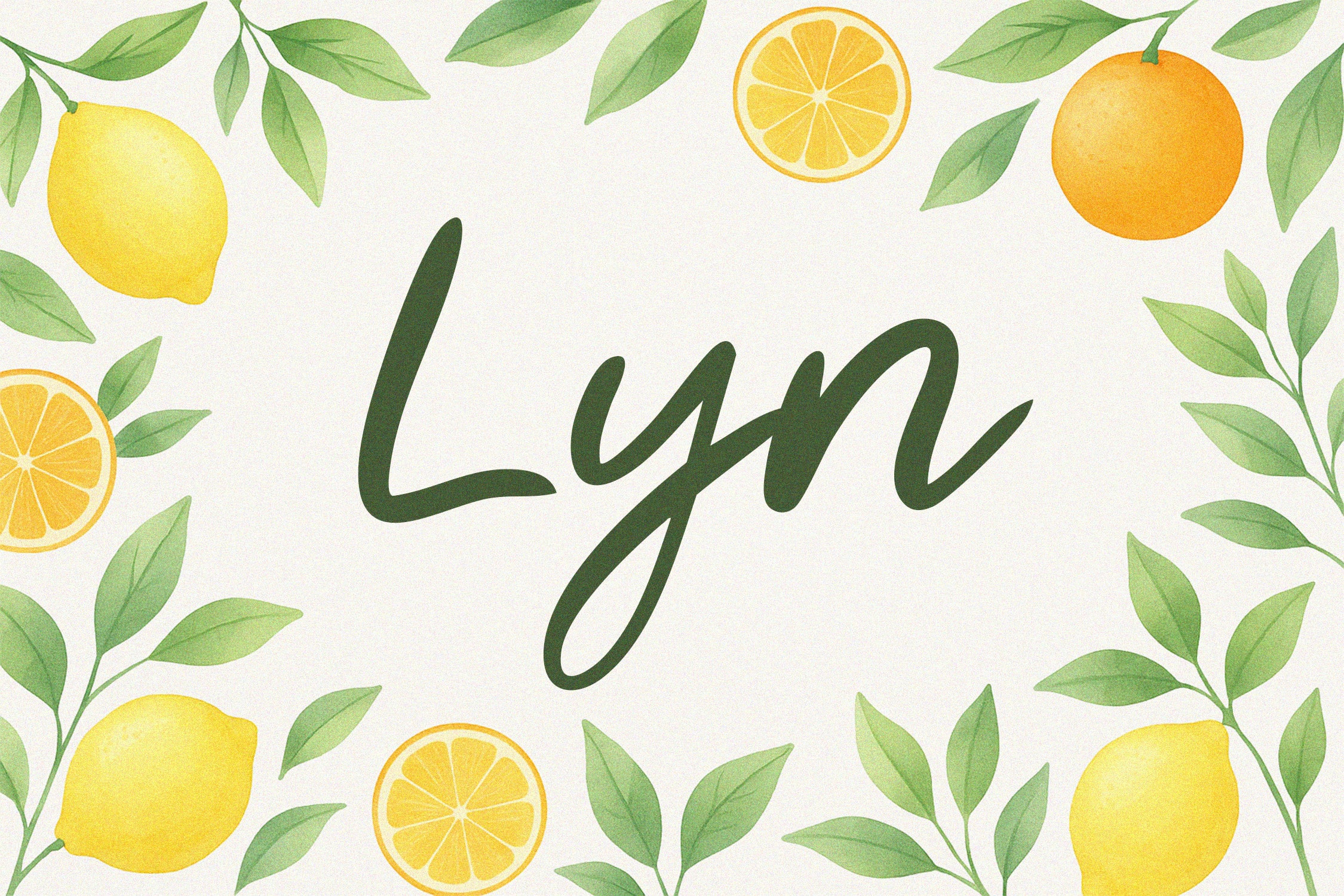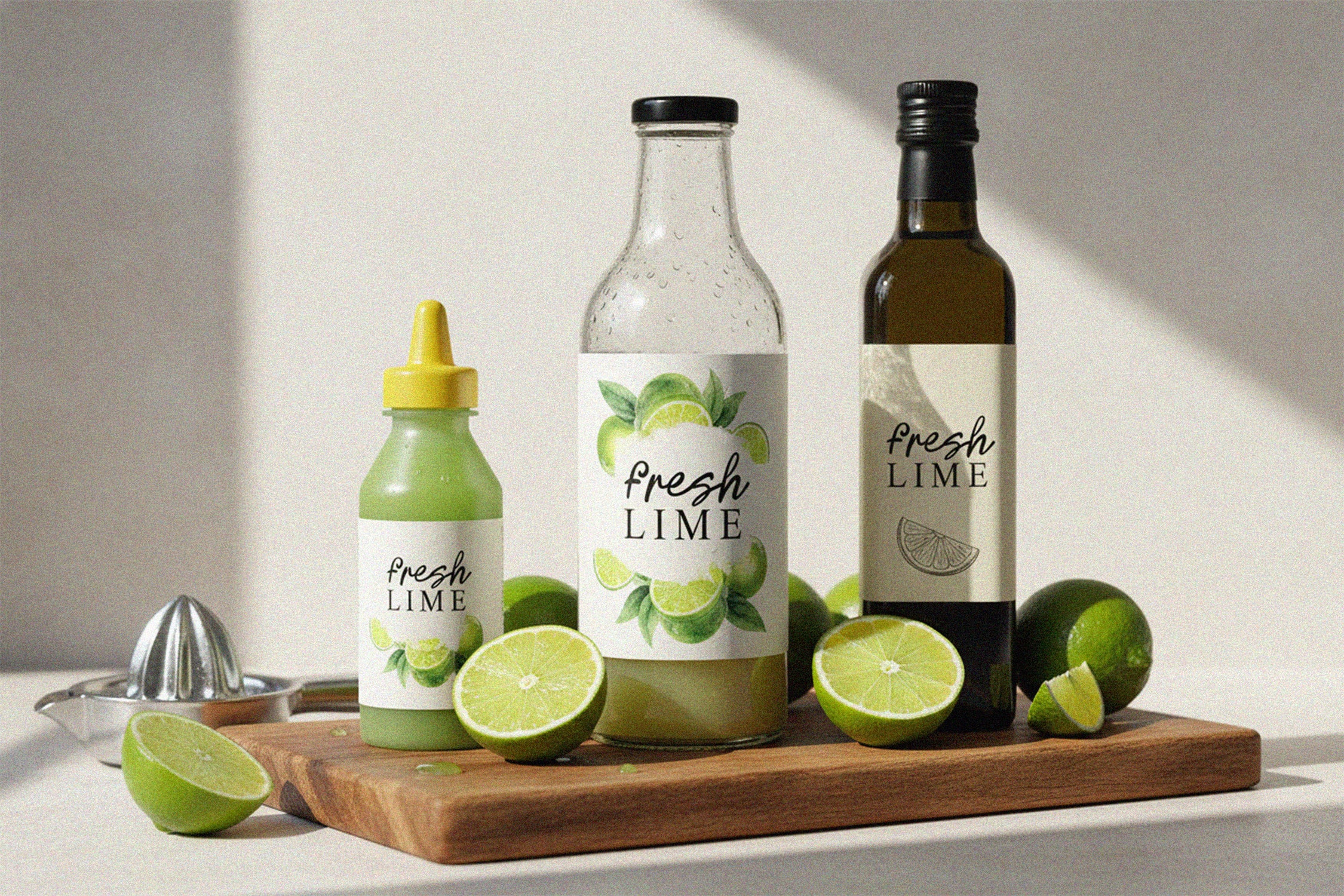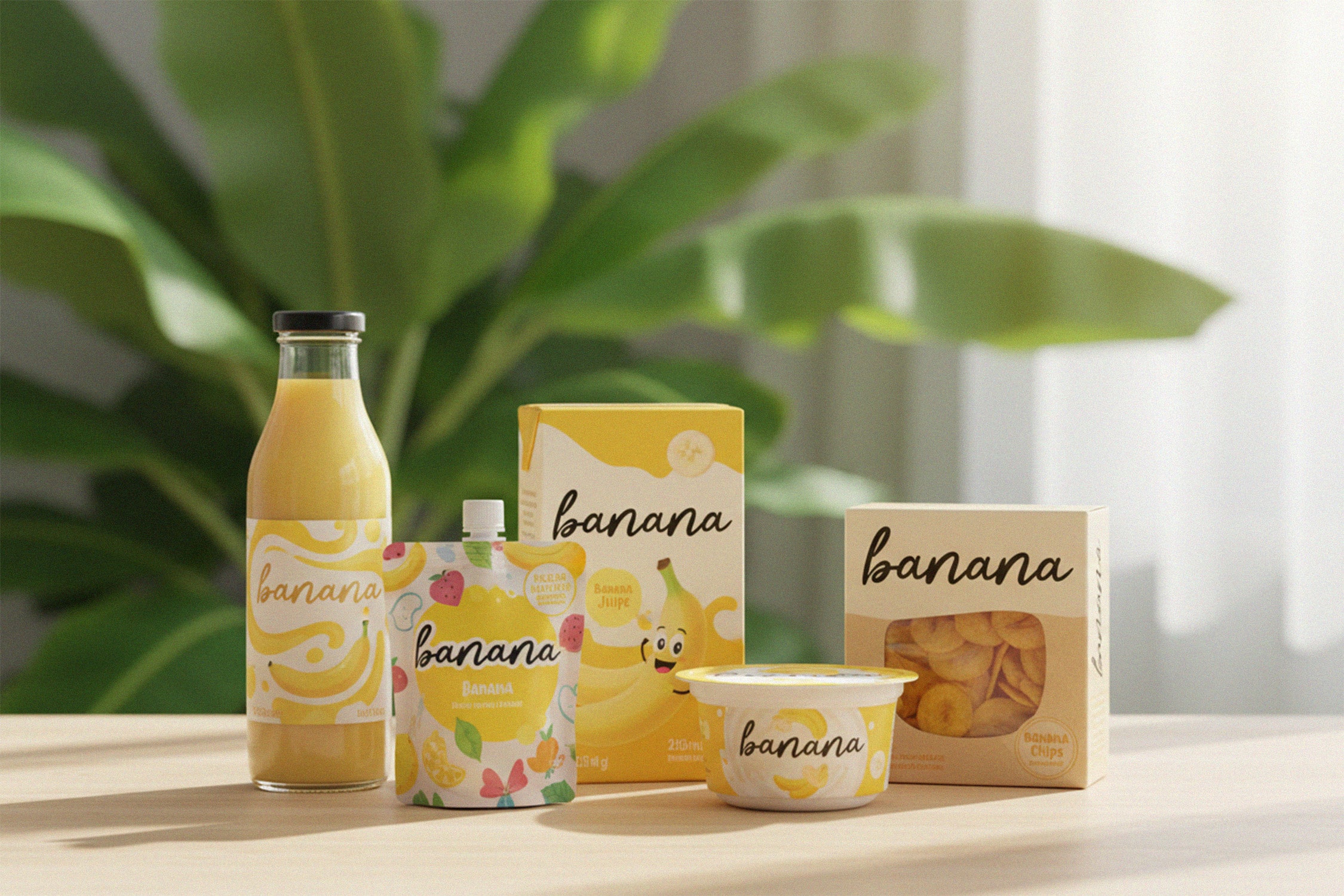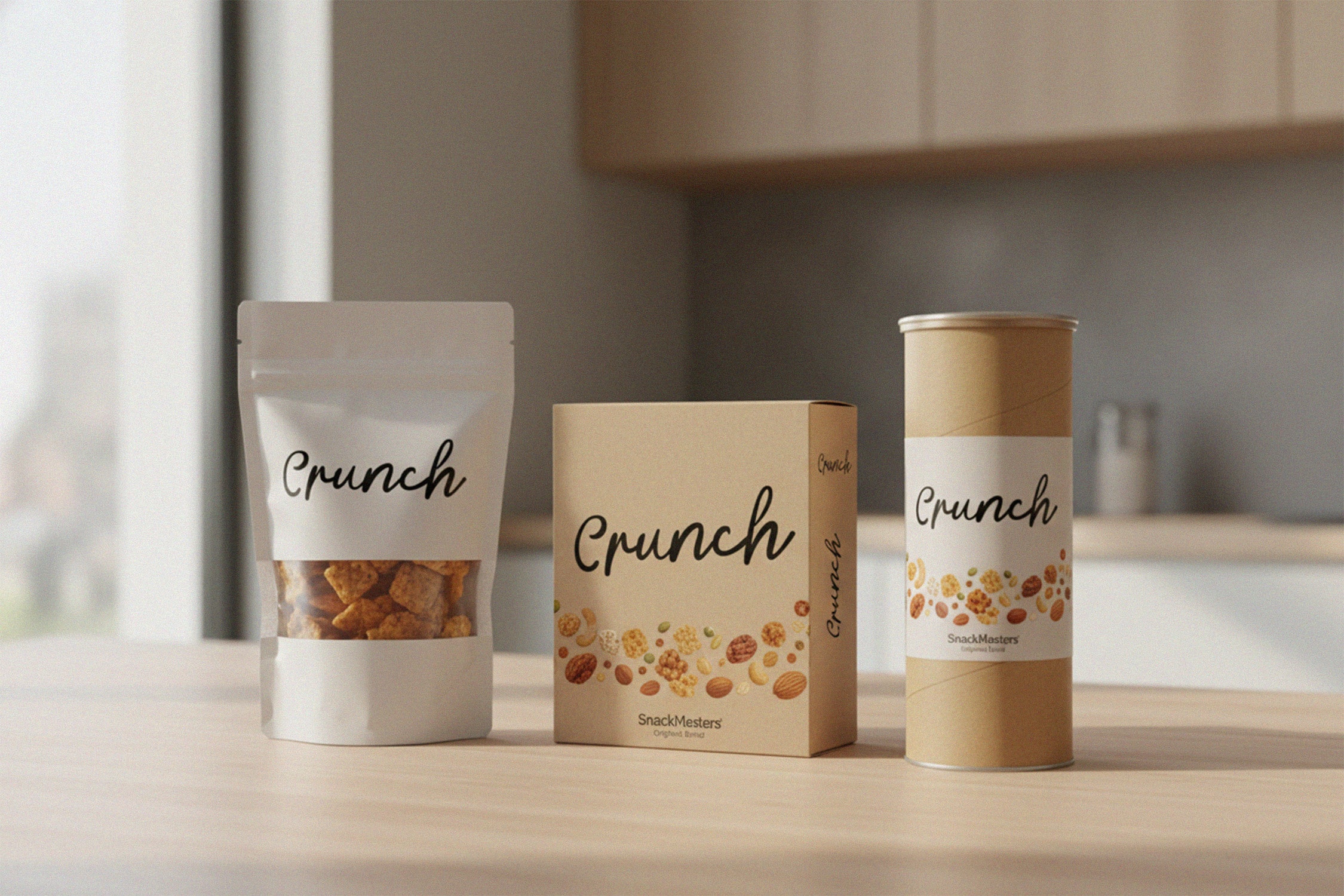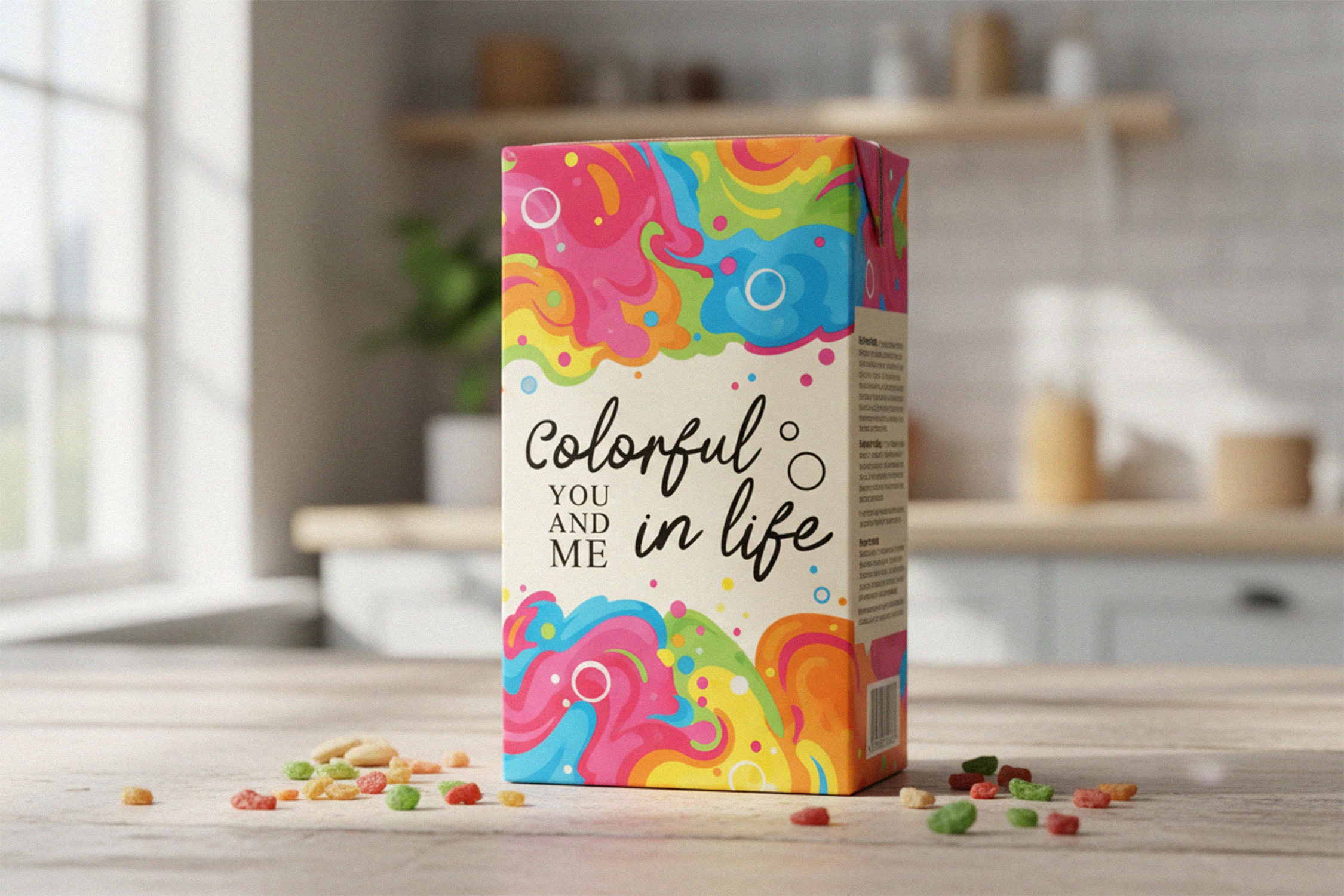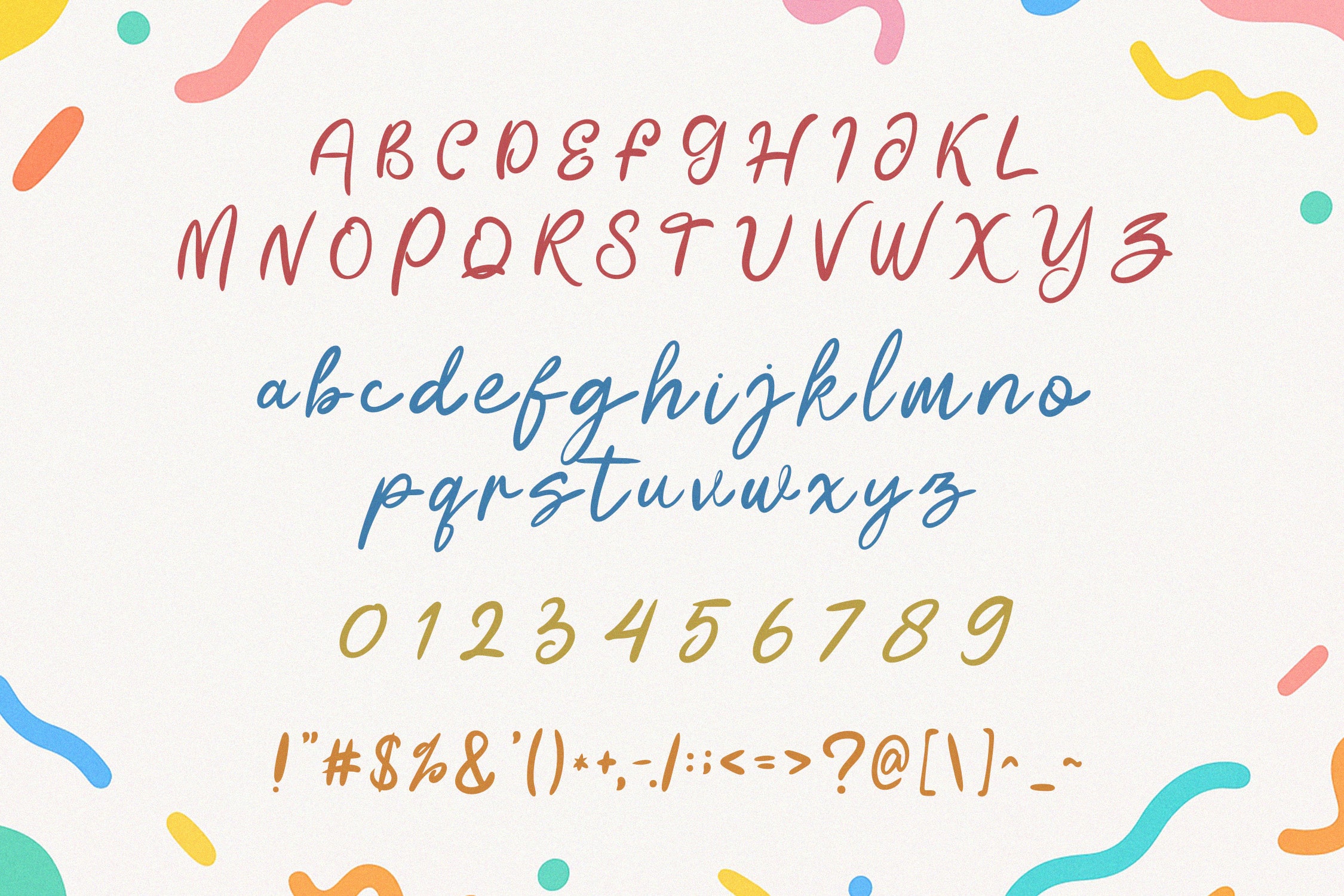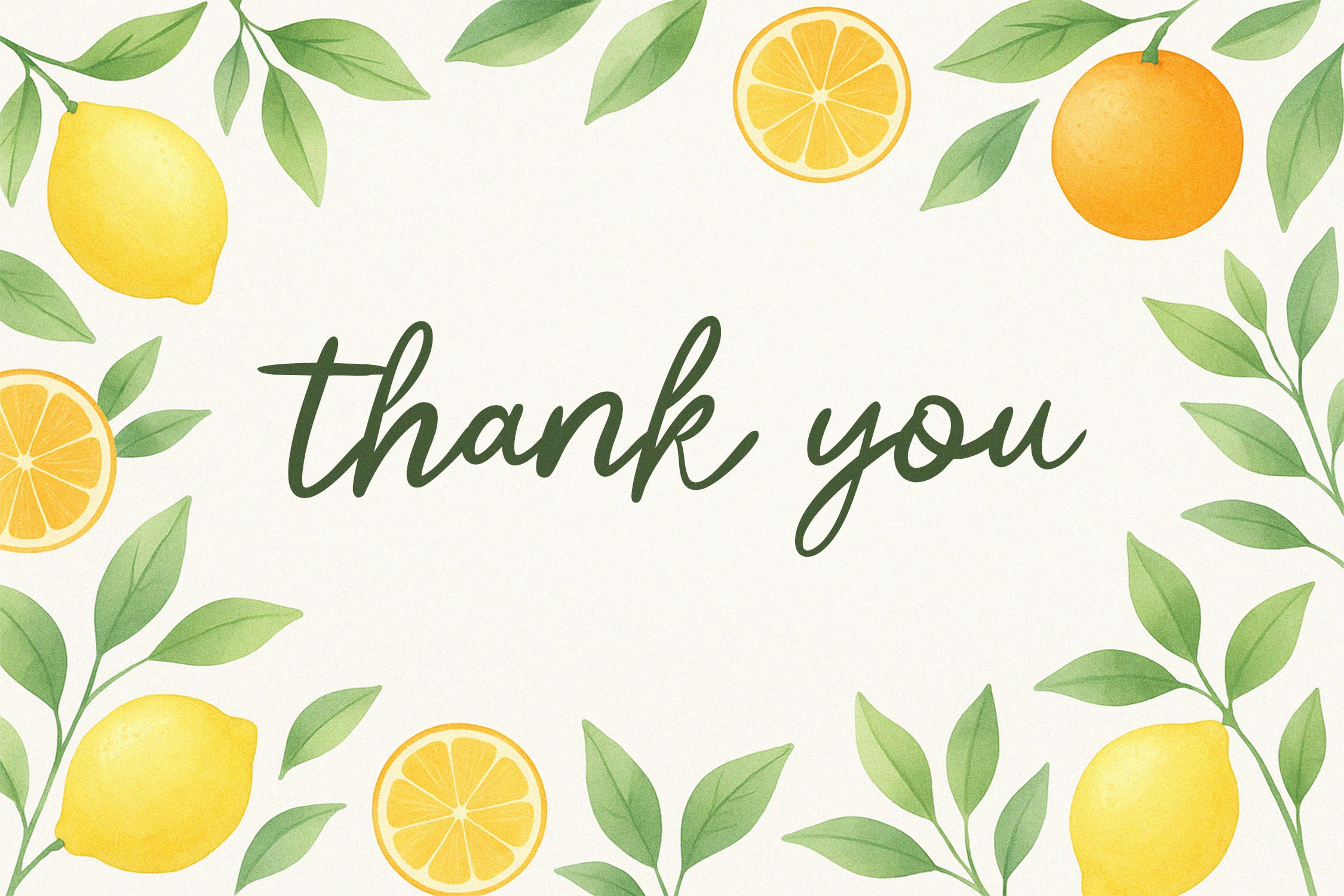
Lyn Playful Script Font is a cheerful and expressive script typeface designed to bring fun, charm, and personality to your creative projects. With its bouncy curves, smooth strokes, and lively handwritten feel, Lyn is perfect for cute branding, children’s designs, greeting cards, packaging, stickers, quotes, and joyful social media content. The playful movement of each letter adds a friendly and welcoming vibe, making your designs feel more personal and engaging. Despite its fun style, Lyn remains clean and readable, giving it the versatility needed for both casual and commercial use.